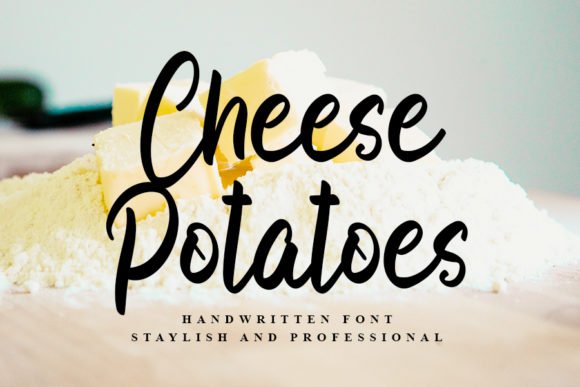
One of the secret ingredients in this creative recipe is a dash of personality – and that’s exactly what the Cheese Potatoes Font brings to the table. This fresh and friendly handwritten font is the perfect accompaniment to holiday-themed greeting cards, crafting projects, and any endeavor that requires a handwritten touch. As a designer, you’ll appreciate the value it adds to your work, elevating it with a personal and approachable feel.
Cheese Potatoes Font Key Features
- Unique Characteristics: Unique, hand-drawn design elements and intricate details, making it perfect for creative and artistic projects
- Font Weight: Offers 5 font weights: Light, Regular, Medium, Bold, and Black
Review of “Cheese Potatoes Font”
I’ve had the chance to work with “Cheese Potatoes Font” and here’s my honest take on it.
- The font’s playful and quirky vibe is perfect for projects that need a lighthearted tone. It’s a great choice for food, children, or entertainment-related designs.
- The font’s bold and rounded shapes make it easy to read, even at smaller font sizes.
- The font’s versatility shines through in its various weight and style options, making it suitable for a wide range of design applications.
- The font’s uniqueness can also be its downfall. It may not be the best choice for more formal or professional projects, as it can come across as too casual or childish.
- The font’s rounded shapes can make it difficult to pair with other fonts that have sharp or angular lines.
- The font’s overall aesthetic can be a bit overwhelming if used excessively in a design.
“Cheese Potatoes Font” is a fun and playful font that excels in projects that require a lighthearted tone. However, its uniqueness can be a limitation in more formal or professional designs. I would recommend using it in moderation and pairing it with other fonts to avoid overwhelming the design.
To get the most out of the Cheese Potatoes Font, try using it in bold or italic styles to add emphasis to your text.
The Cheese Potatoes Font is ideal for use in:
- Food and drink branding
- Restaurant and cafe menus
- Food packaging and labels
- Blog and social media posts about food